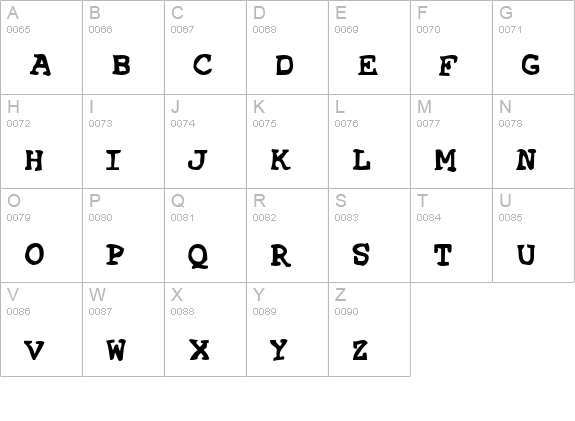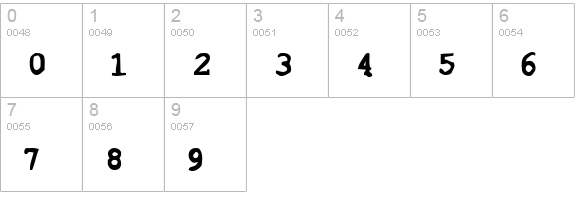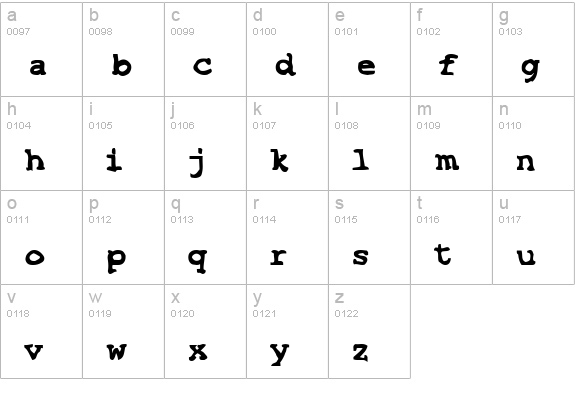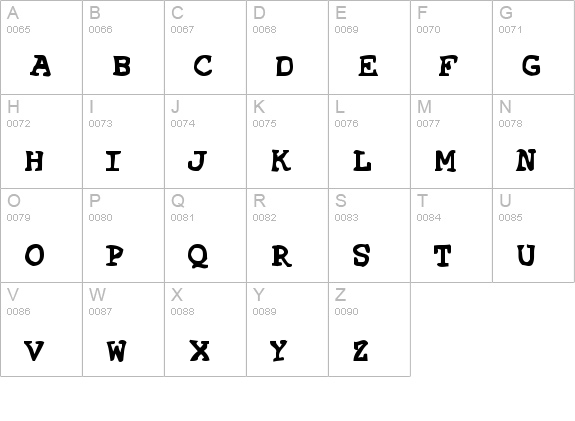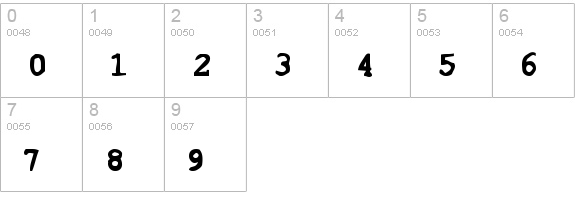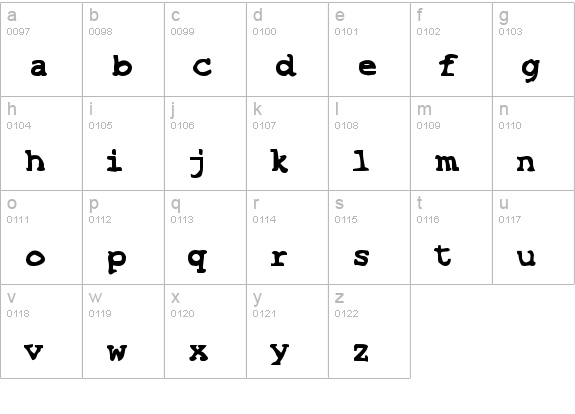
SF Espionage Heavy Font Details
SF Espionage Heavy is a heavy, high-impact variant in the SF typeface family \xE2\x80\x94 well suited to high-impact headlines, posters, and display advertising.
SF Espionage Heavy is a bold and captivating font designed specifically for those who seek to add an air of intrigue and secrecy to their designs. This font is inspired by the world of espionage, where every letter carries a hidden message and every word is designed to leave a lasting impact. With its strong and commanding presence, SF Espionage Heavy is perfect for creating attention-grabbing headlines, titles, and logos. Its sharp edges and sleek lines exude a sense of power and sophistication, making it an ideal choice for projects that demand authority and professionalism. What sets SF Espionage Heavy apart is not just its striking design, but also its accessibility. It is available for free download at FontsMarket.com, allowing designers of all levels to easily incorporate this font into their projects without any hassle. This makes it a valuable asset for both experienced designers and newcomers alike. Whether you're working on a top-secret mission briefing, a covert operation advertisement, or a thrilling book cover, SF Espionage Heavy is the font that will effortlessly capture the essence of espionage. Its unique blend of strength and elegance will leave a lasting impression on your audience, ensuring that your message is conveyed with the utmost impact. Unlock the power of SF Espionage Heavy and add a touch of intrigue to your designs. Download it for free at FontsMarket.com and embark on a journey into the world of clandestine operations and hidden agendas.